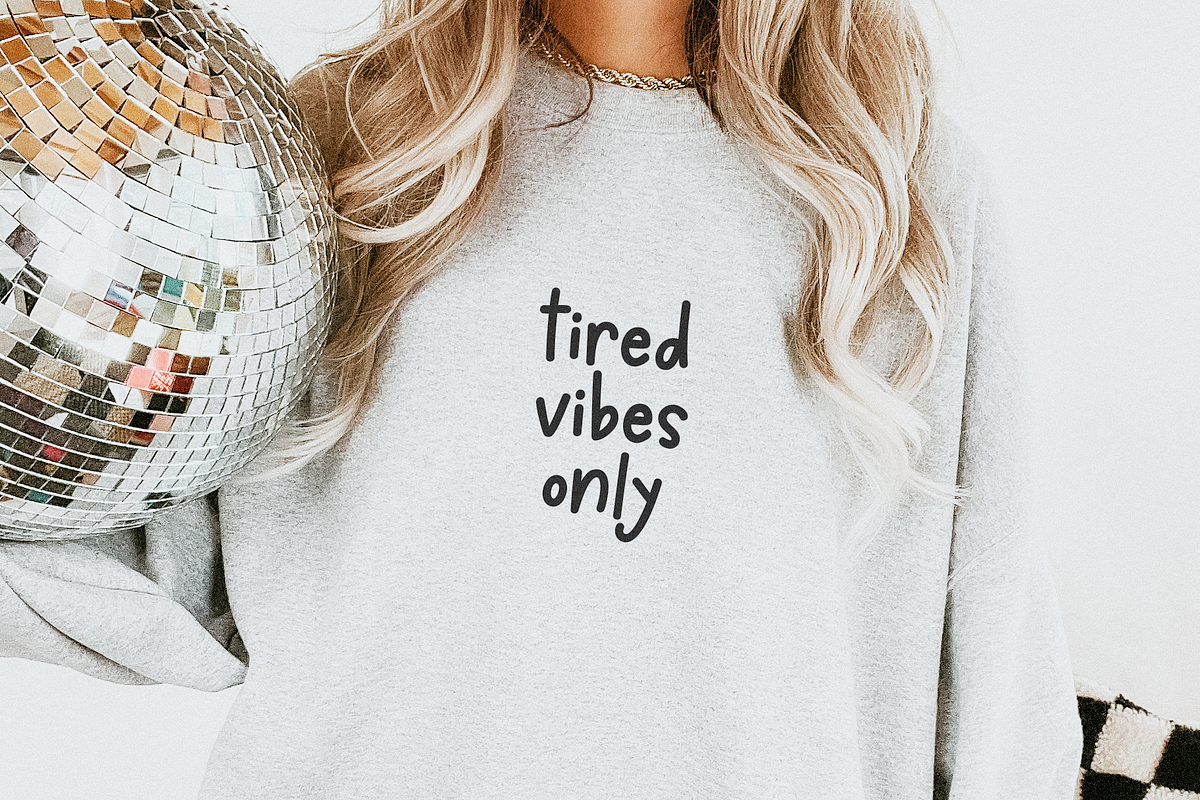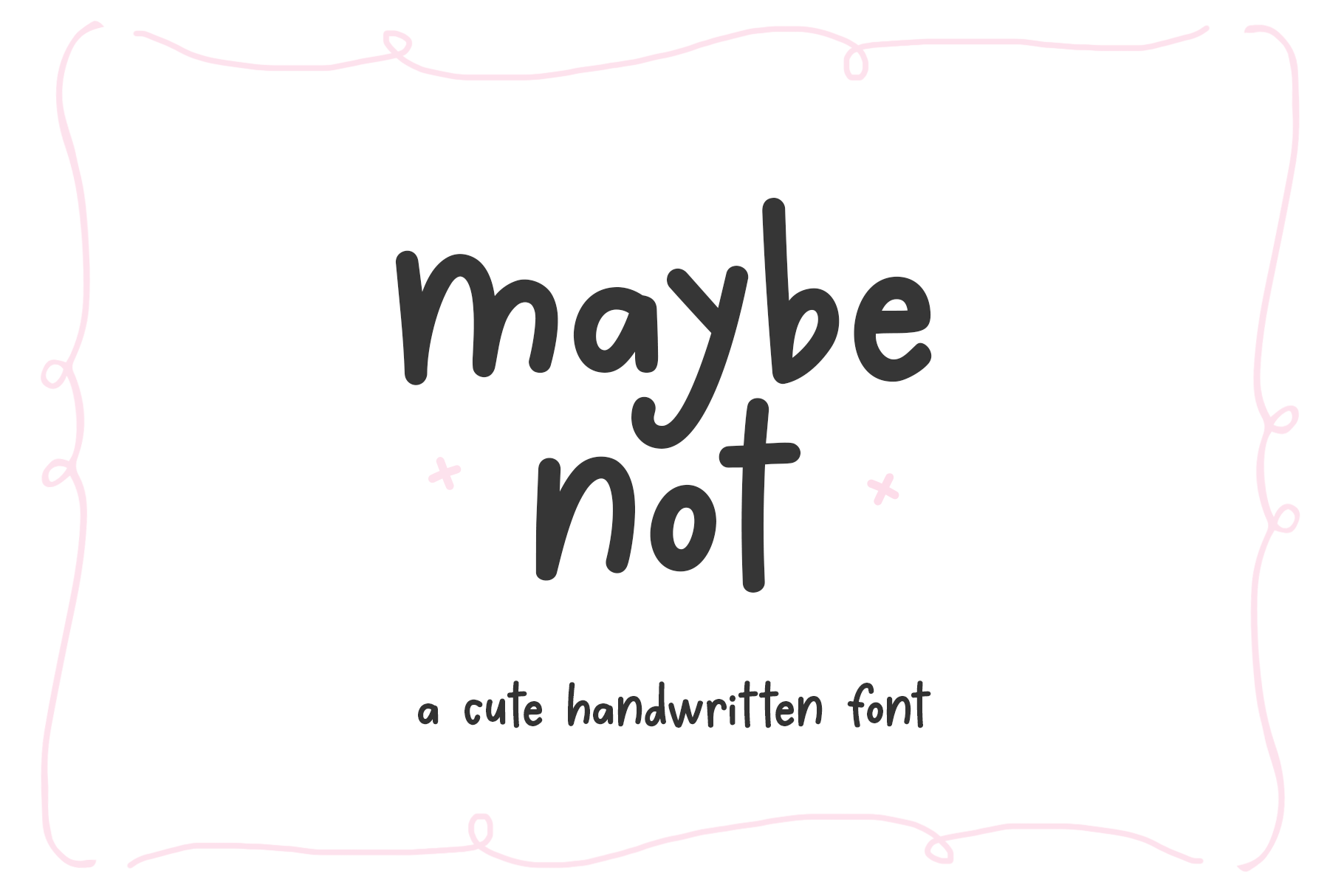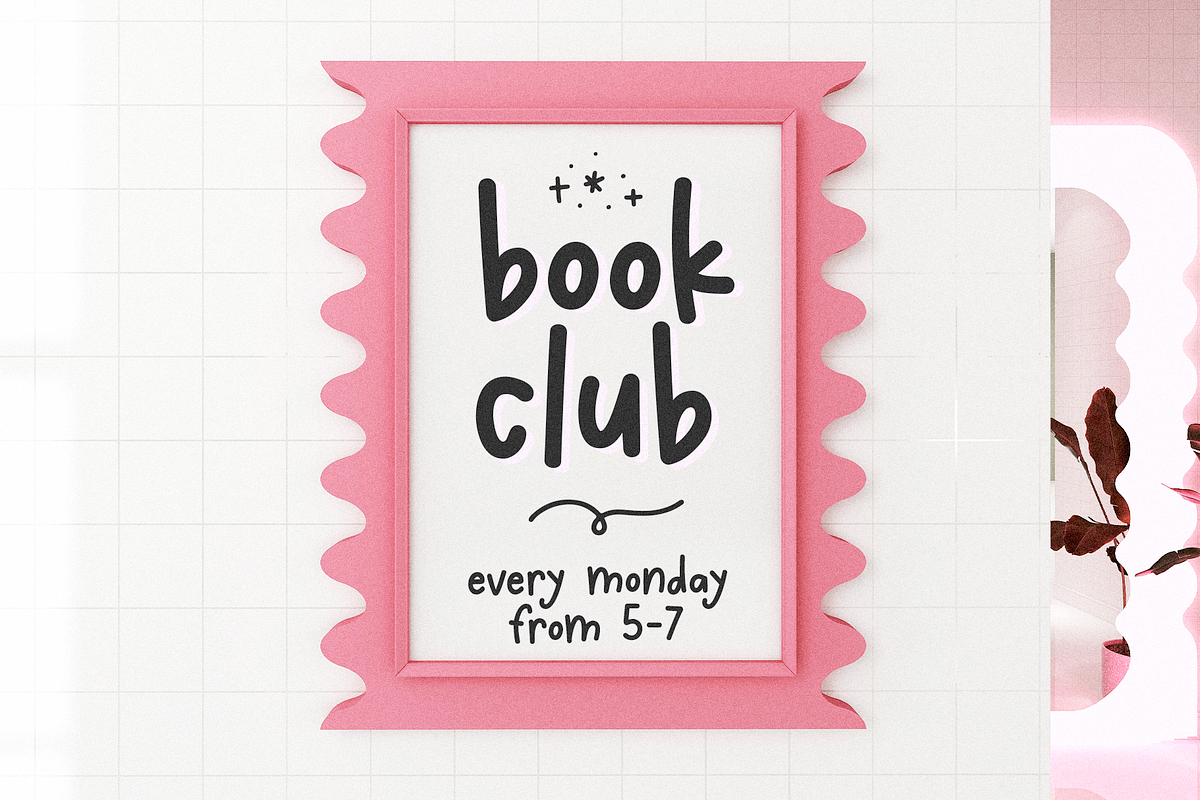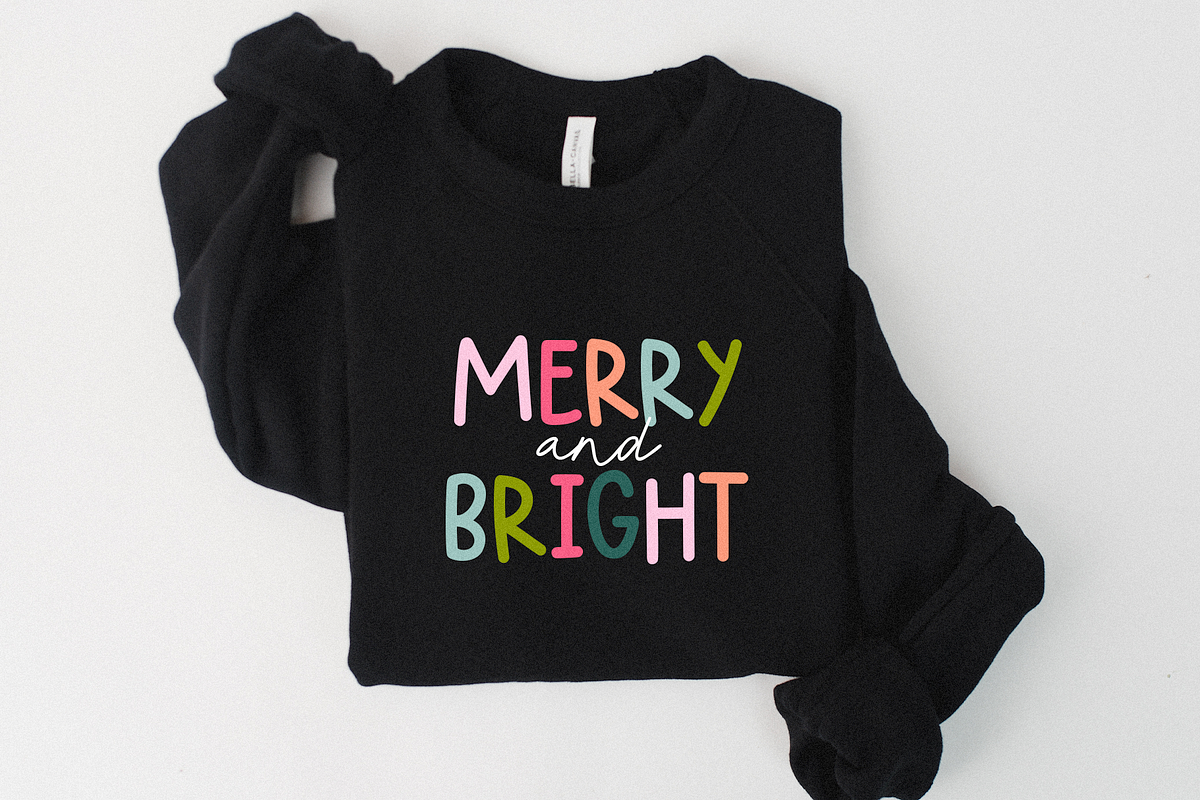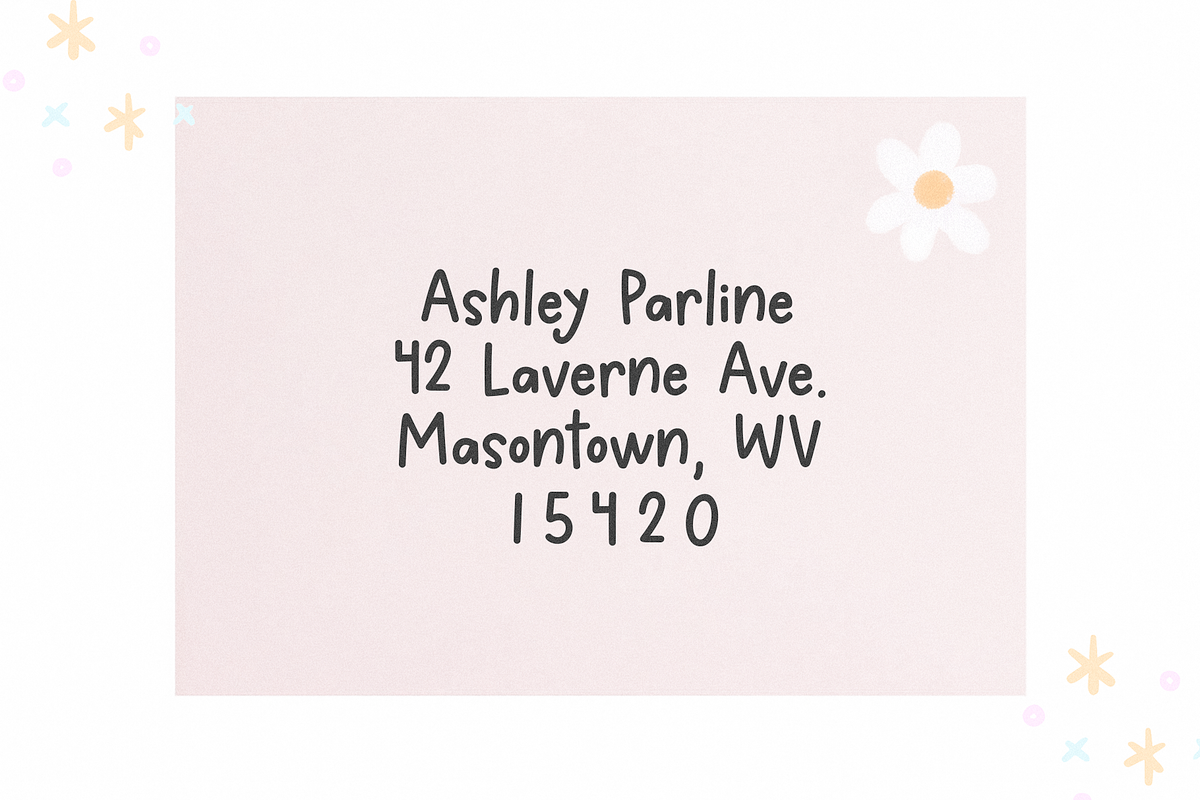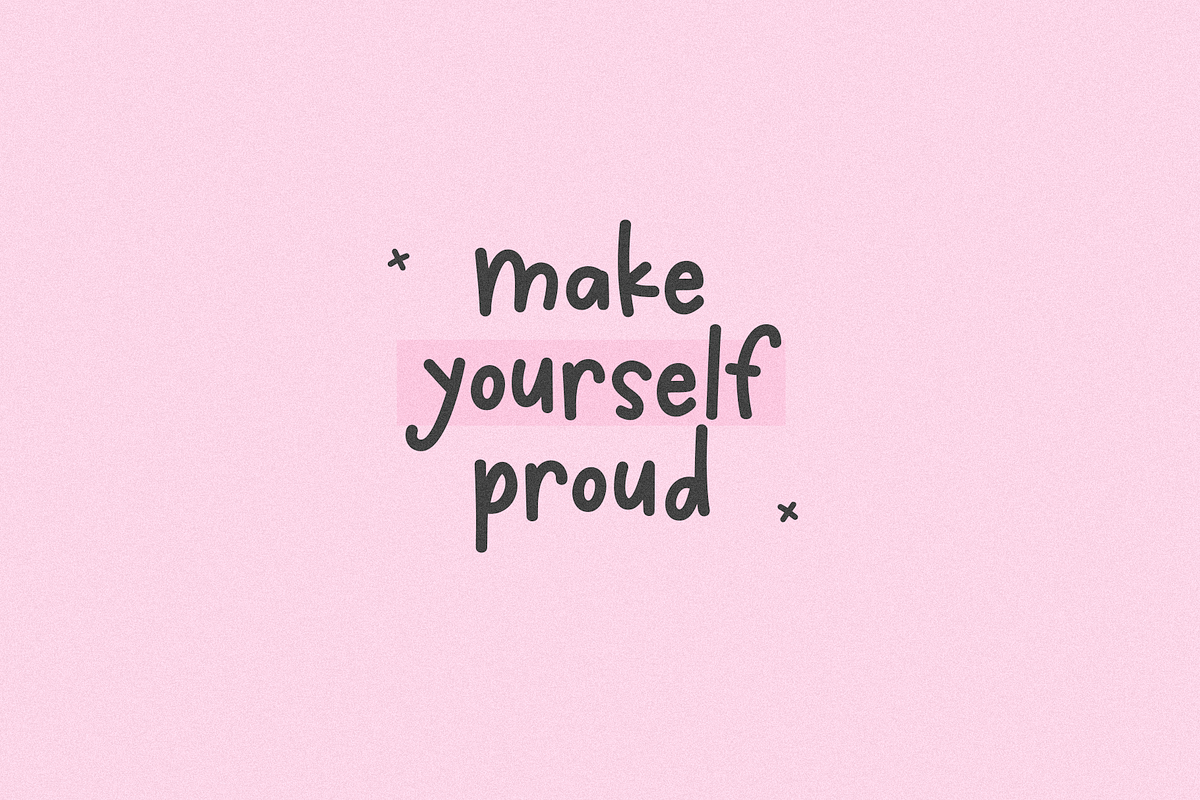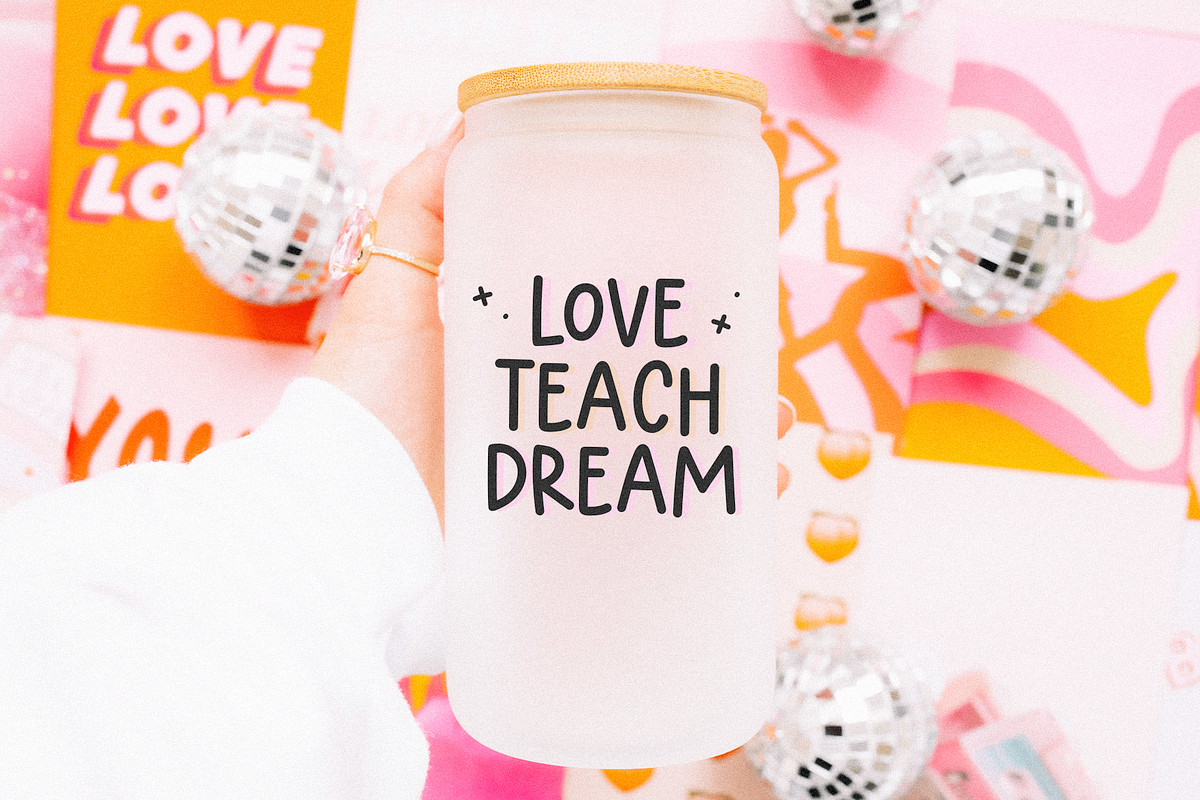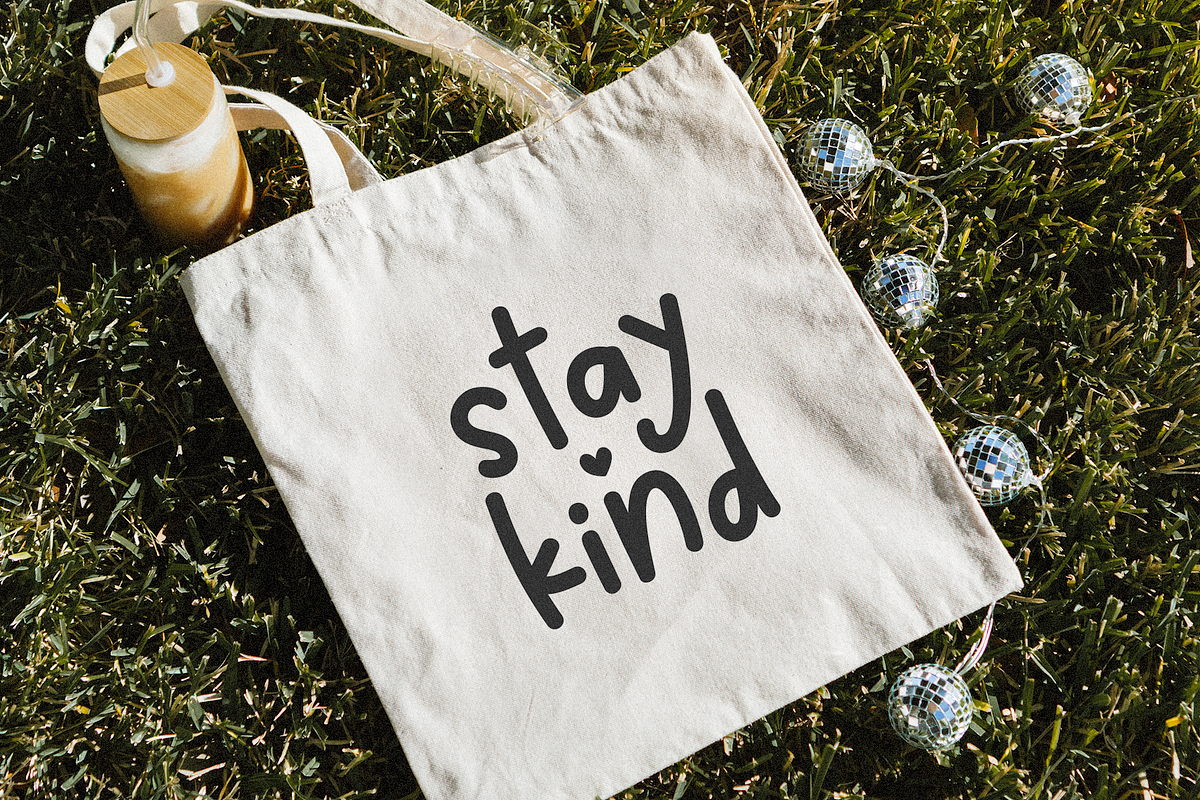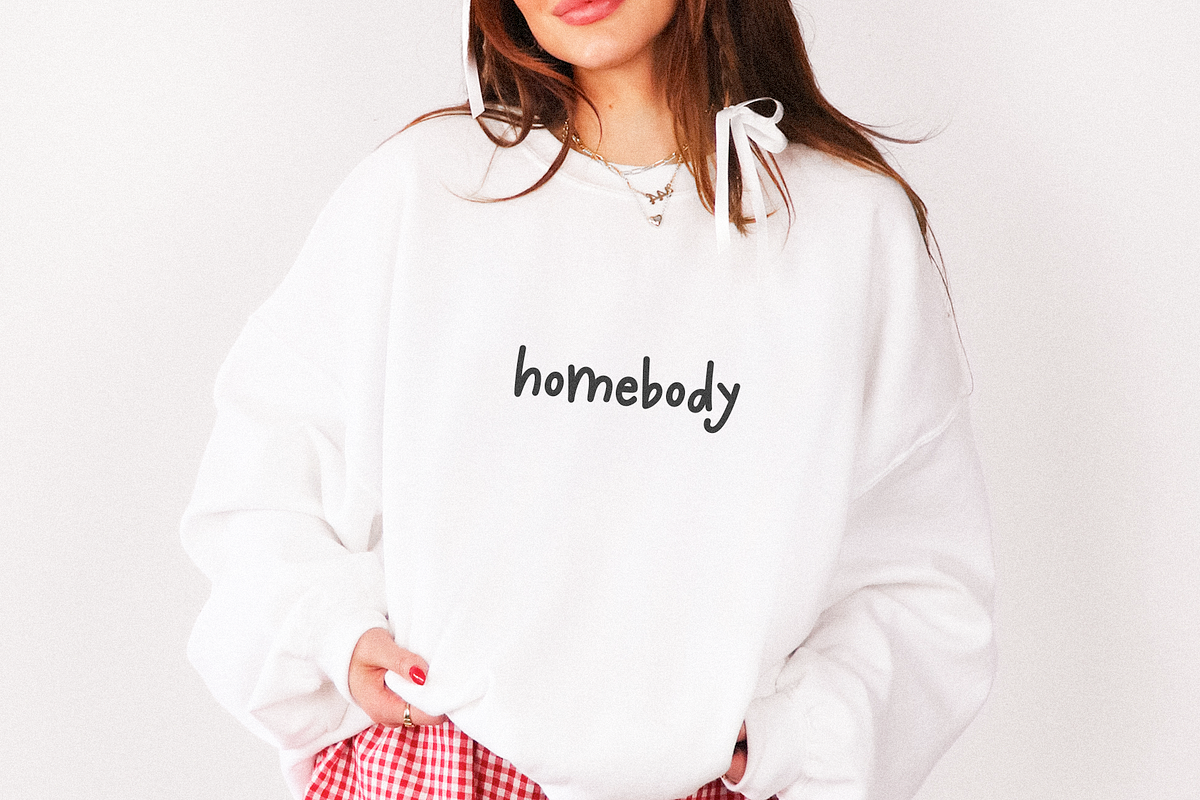
Maybe Not | Cute Handwritten Font
Maybe Not is a cute handwritten font.
This font is perfect for cricut projects, teachers, goodnotes, planners, stickers, quotes and more!